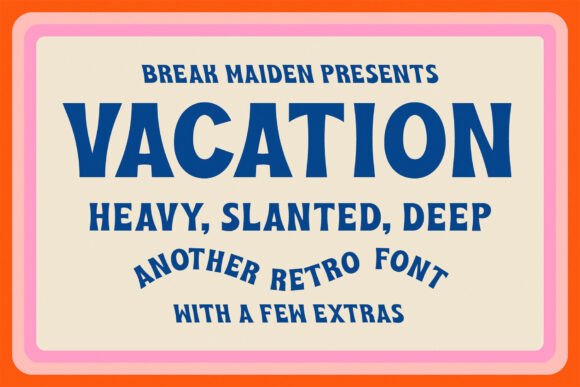
Vacation Font
Vacation Display was inspired by psychedelic posters of the 60s and 70s, Hawaiian matchbook advertisements, and our curious love for the Trader Joe’s logo. This “retro” display font comes in 3 different styles along with a few chill extras.
Ideal for gig posters, bucket hats, enormous stickers, bachelor parties, postcards, taco joints, fishing charters, dive bars, shell shops, and business retreats.